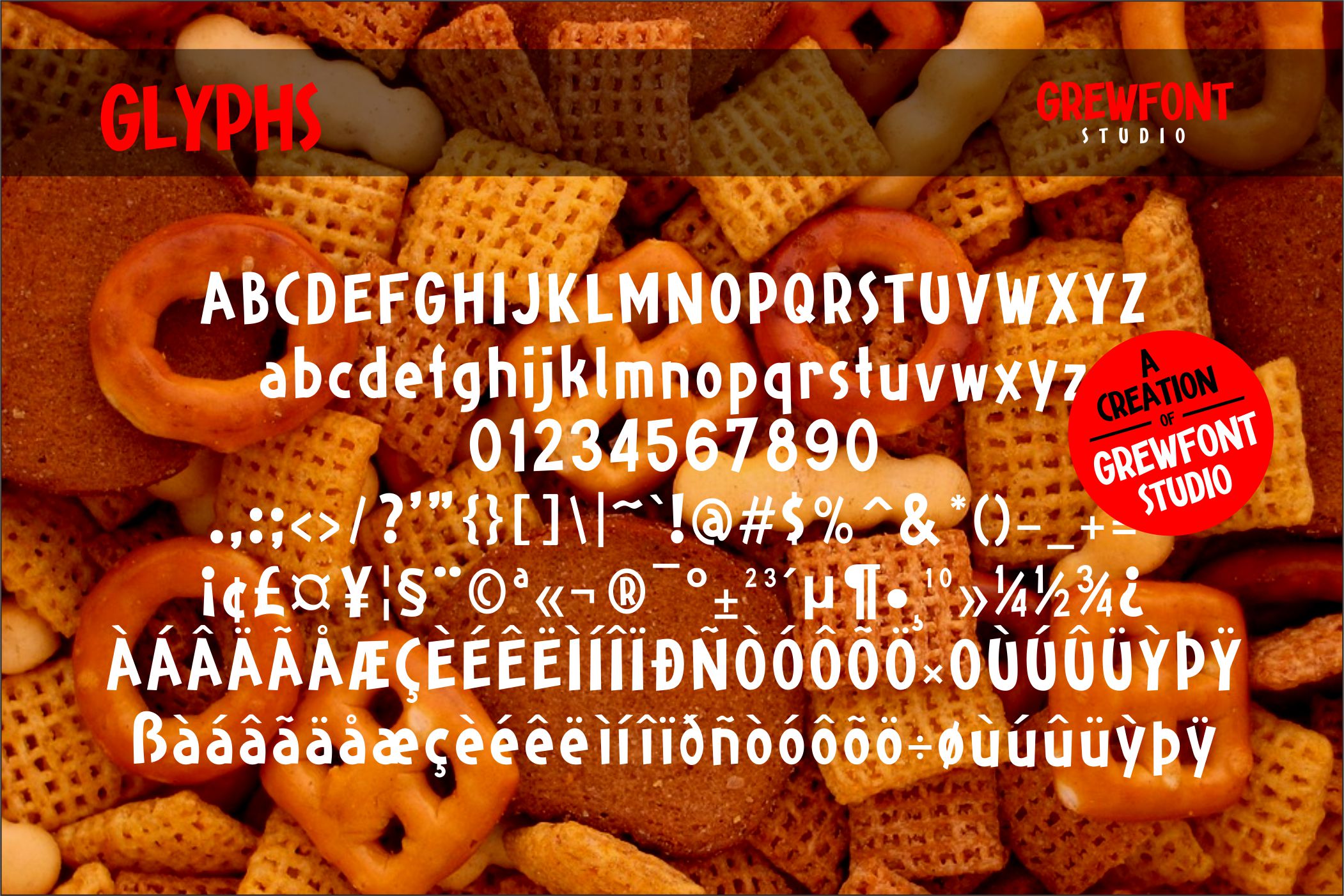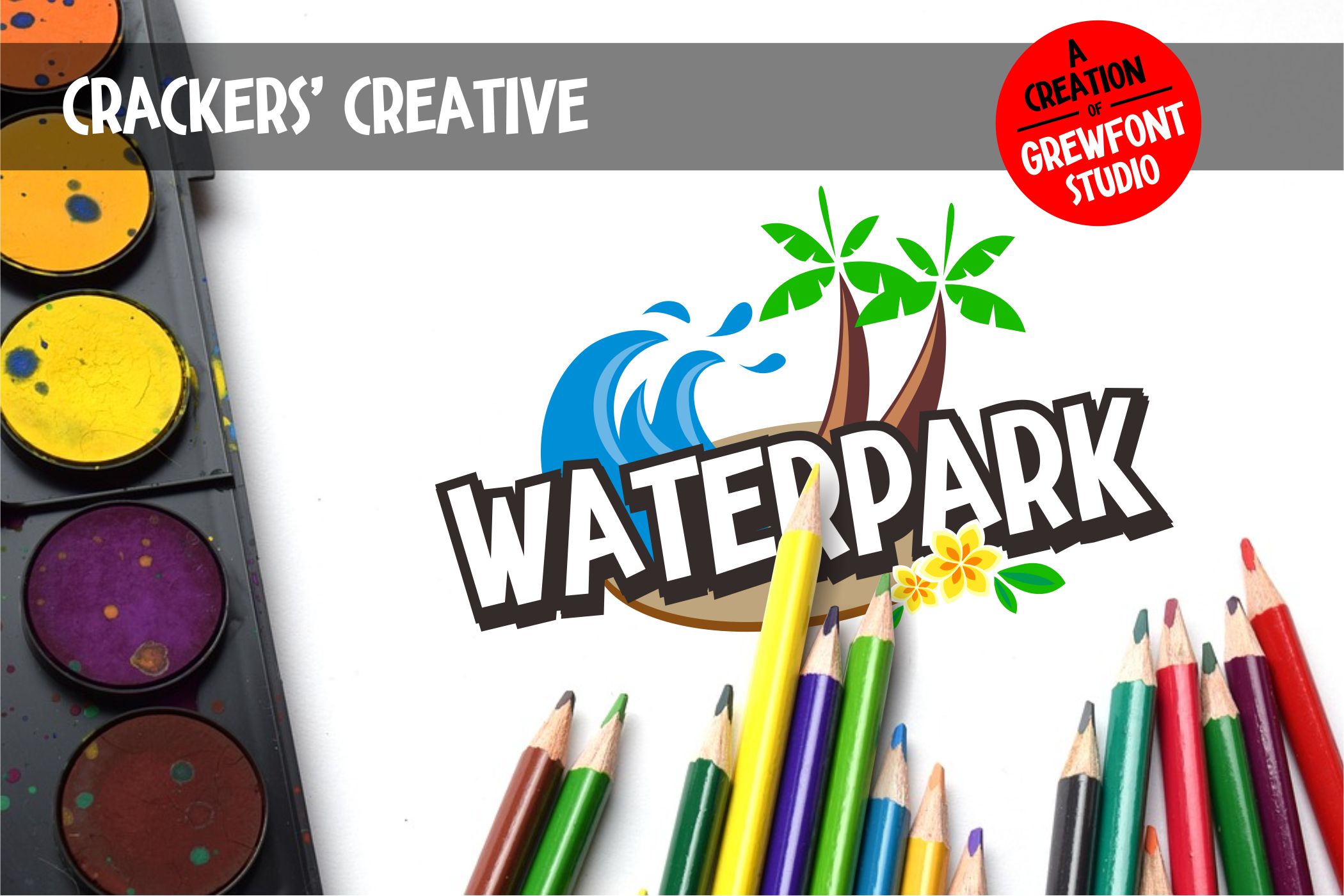
Crackers is a display font inspired for fun image and playful taste. This fantastic typeface is best suited for headlines of all sizes, as well as for blocks of text that have both maximum and minimum variations. Whether it’s for web, digital crafts, logotype, wordmark, print, moving images or anything else, it fits for every young and playful design.